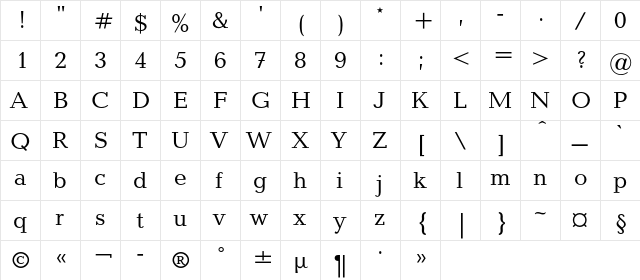
BalticaC Regular Font Preview
BalticaC Regular
BalticaC Regular Font Details
Design Context for BalticaC Typeface
BalticaC takes a measured approach to typography — its balanced proportions and neutral character make it a reliable workhorse for both digital and print work.